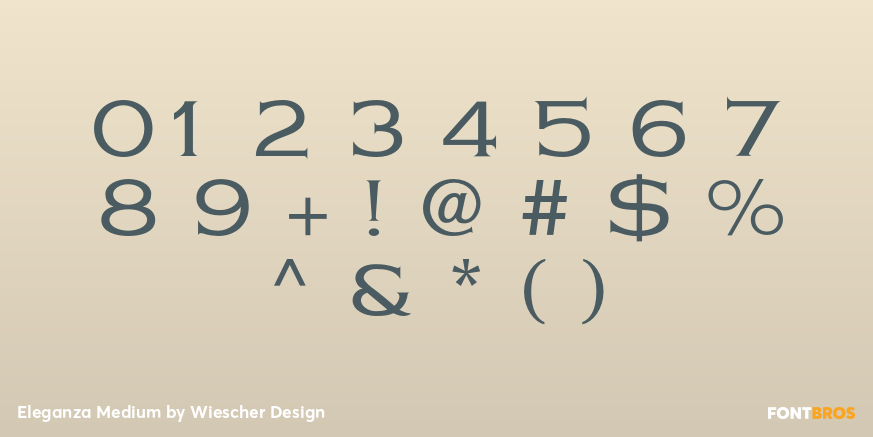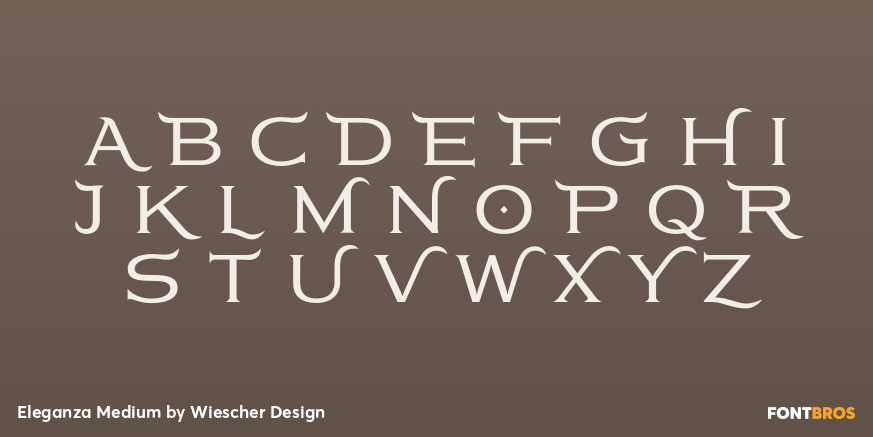
Eleganza Medium
Eleganza Medium is a serif display family with a polished, refined look and a distinctly classic voice. Its letterforms feel graceful and composed, making it a strong choice when you want typography that reads as formal, stylish, and a touch theatrical.
Offered by Wiescher Design, this family includes 2 styles: Eleganza Medium Plus and Eleganza Medium Regular. That compact range makes it easy to build consistency across projects while still giving you a little flexibility in tone and emphasis.
With its decorative serif character, this family is especially well suited to logos, invitations, packaging, posters, branding, and other display-focused work where a more elegant typographic presence can carry the design.